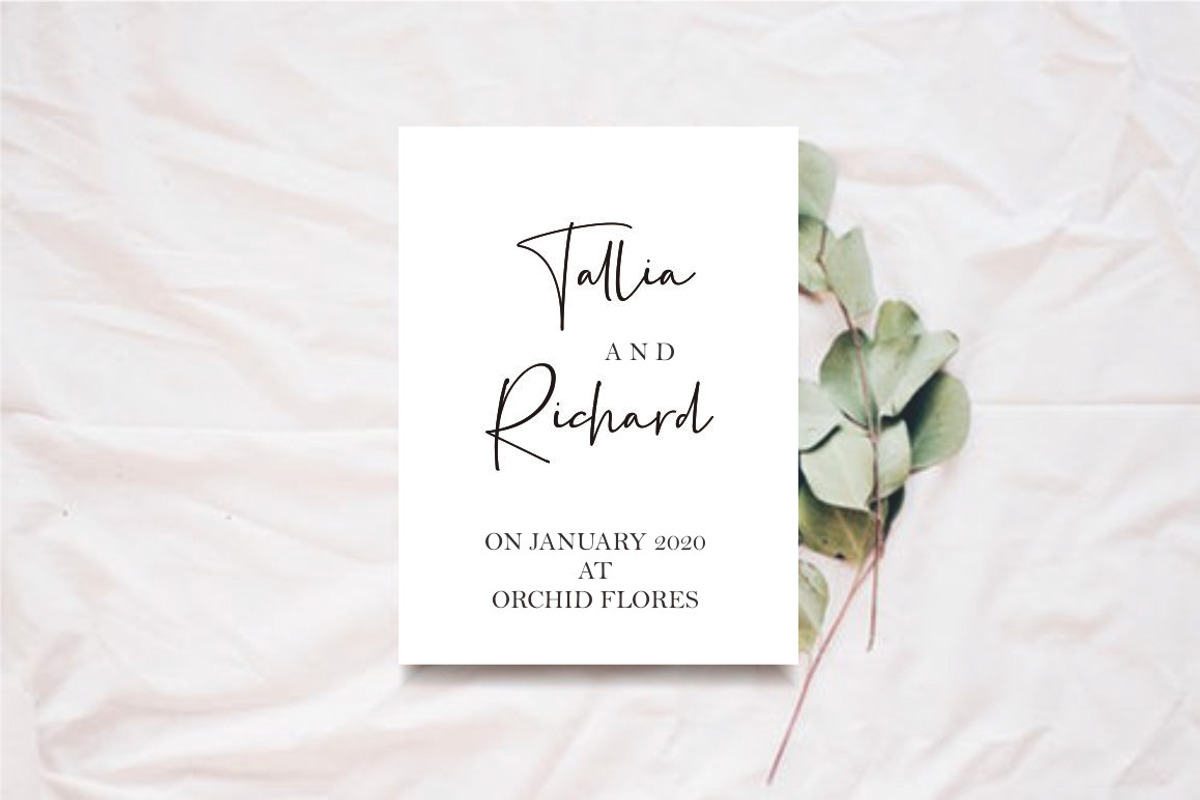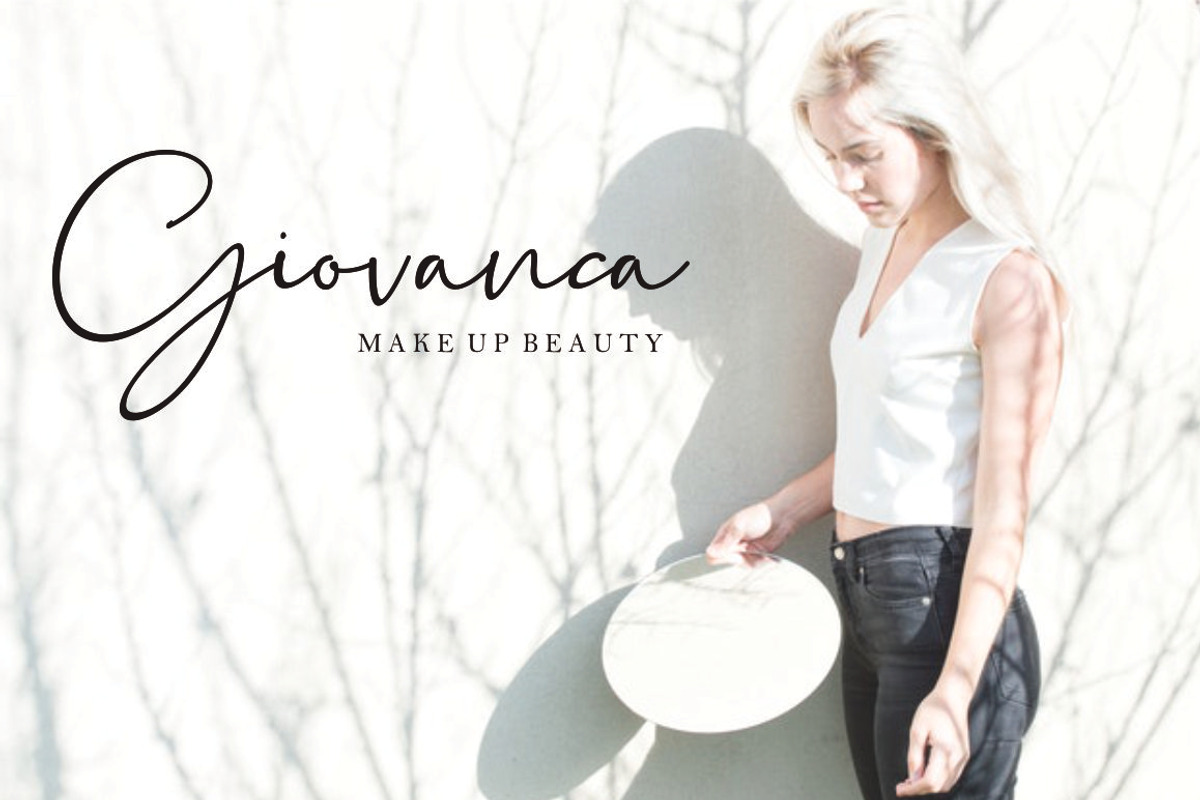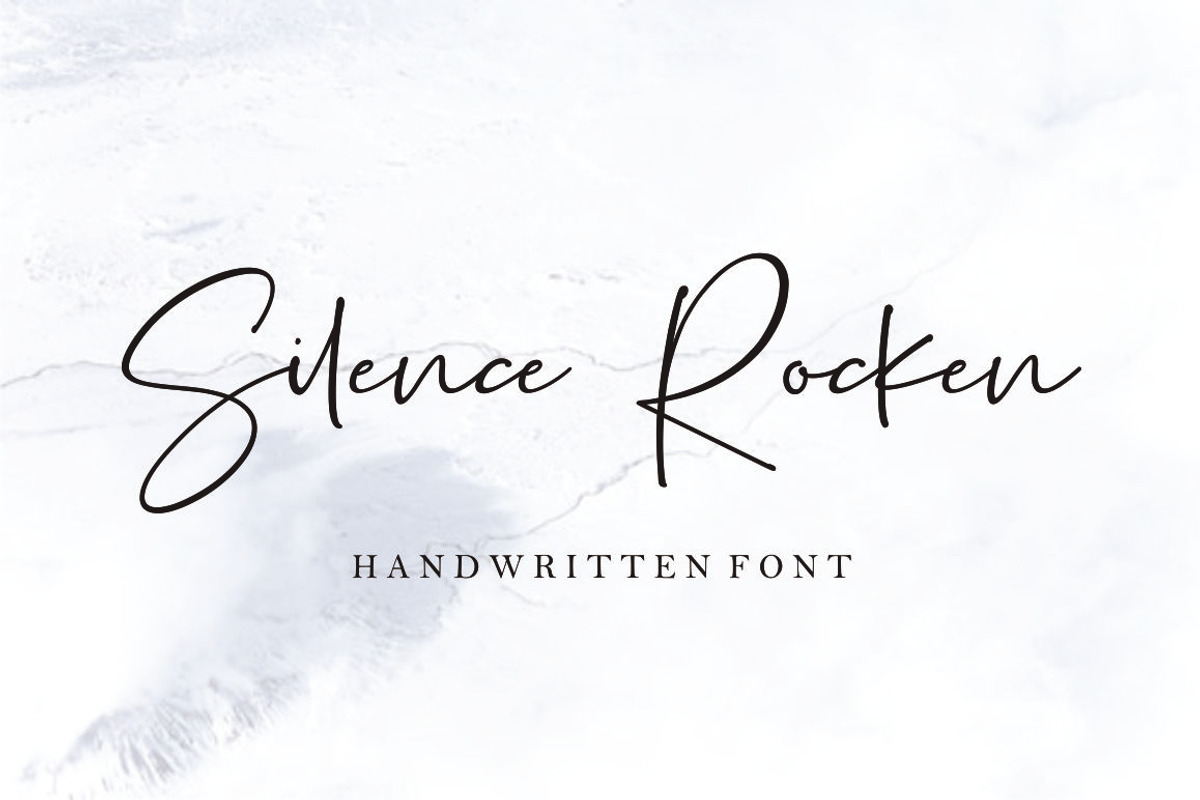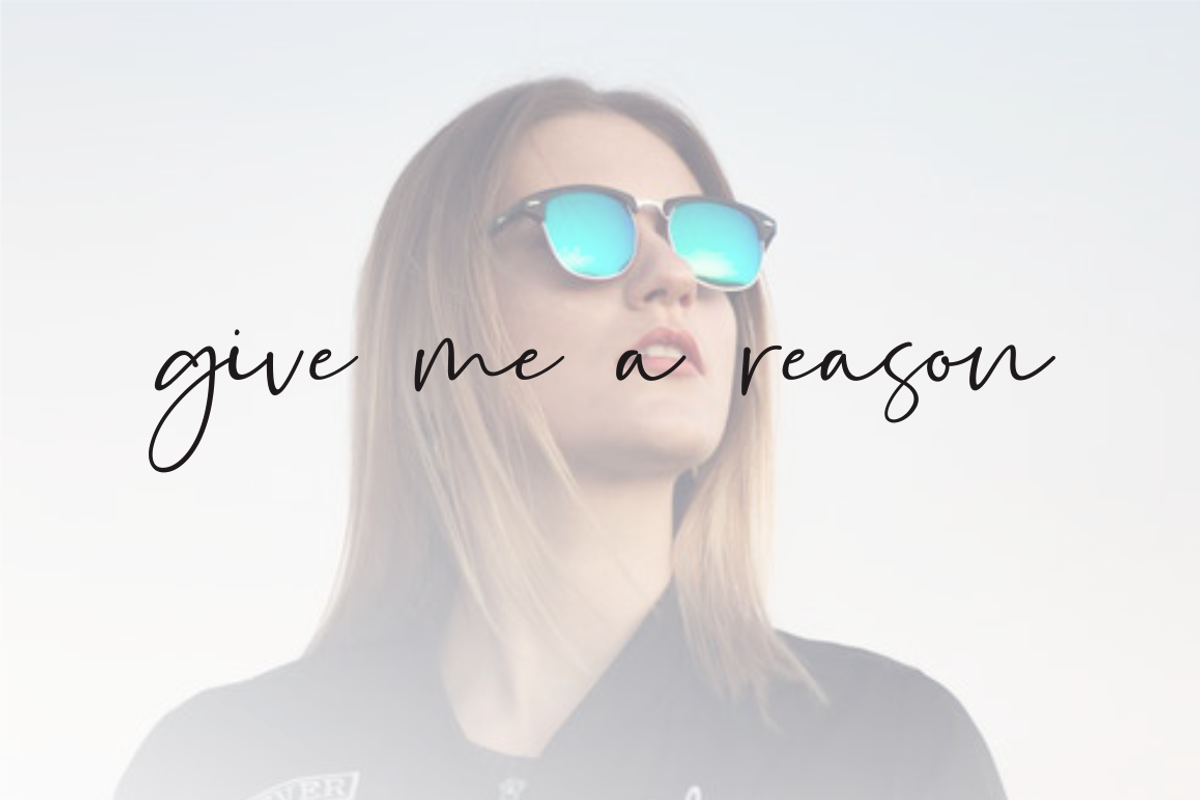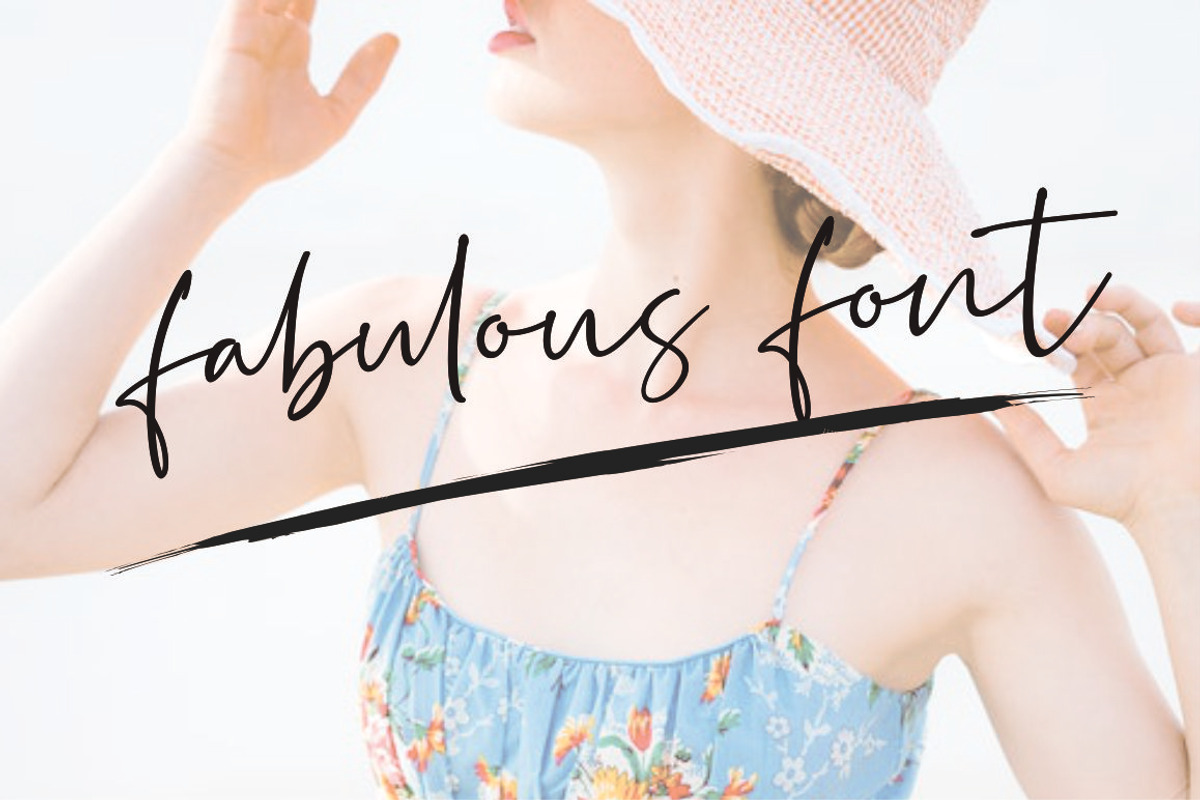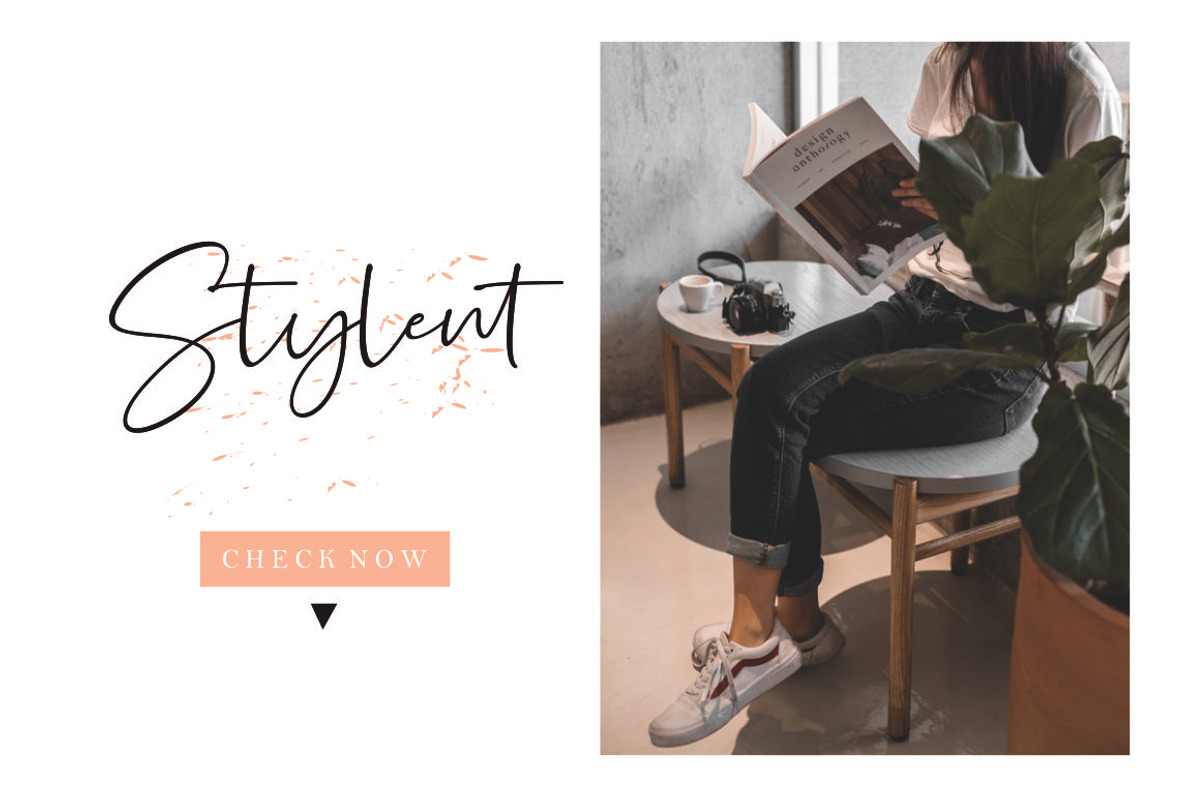
Silence Rocken - Handwritten Font
Silence Rocken – Font is a new stylish script font. It’s perfect for logo, branding, title, social media posts, advertisements, product packaging, product designs, label, photography, watermark, special event, magazine, web design, etc. If you have any questions please don’t hesitate to contact me. follow my Instagram: @fkryall Website: https://fikryalstudio.com/